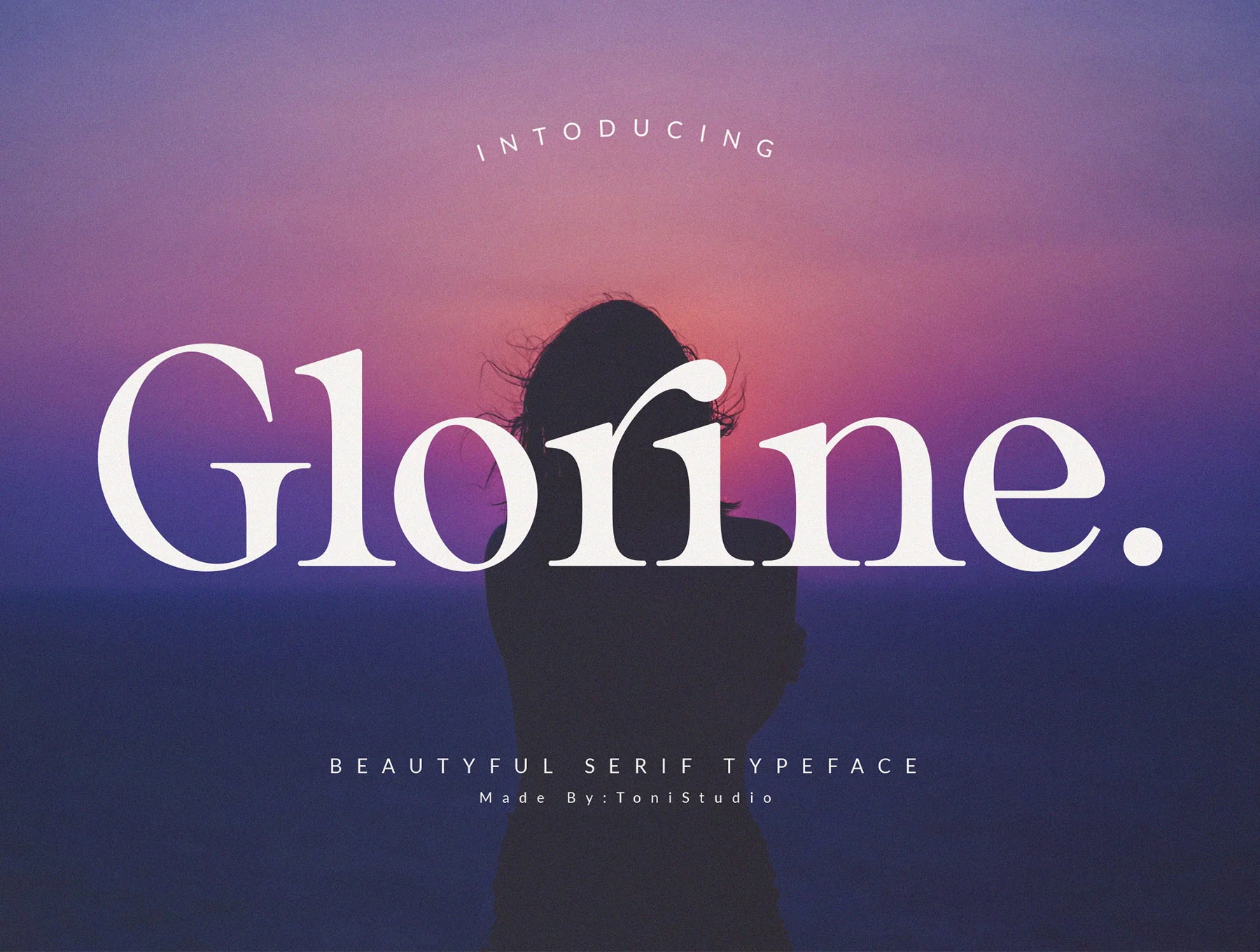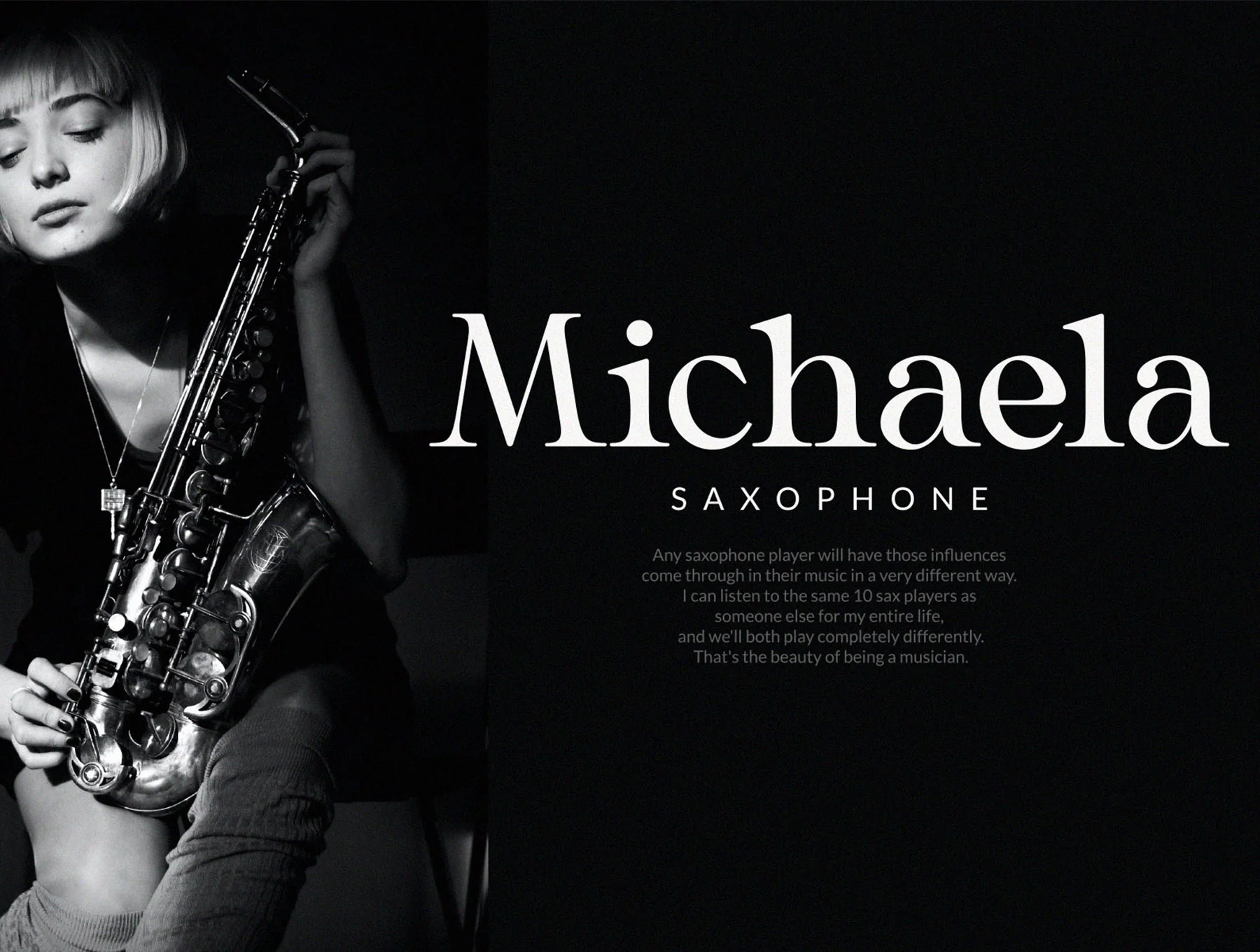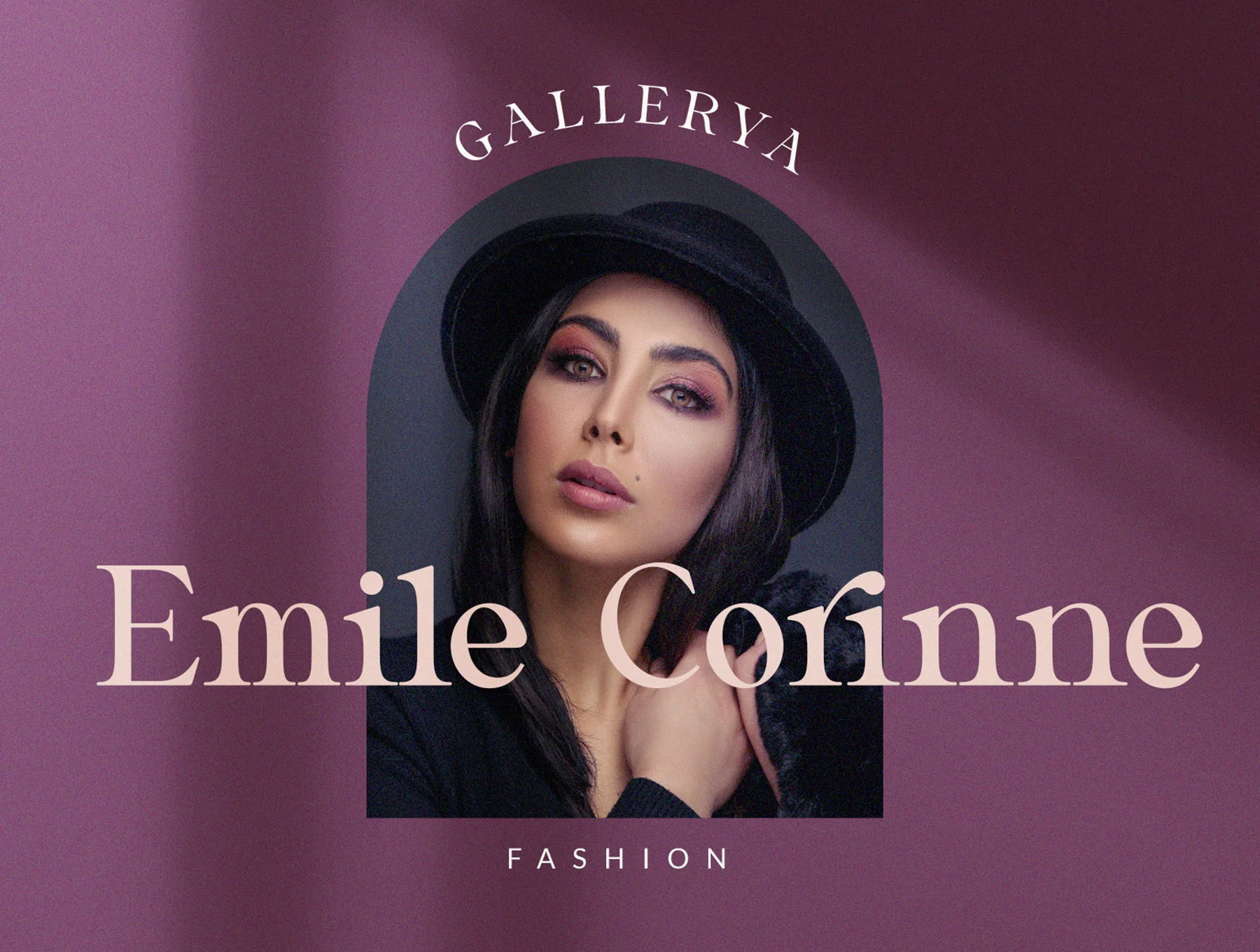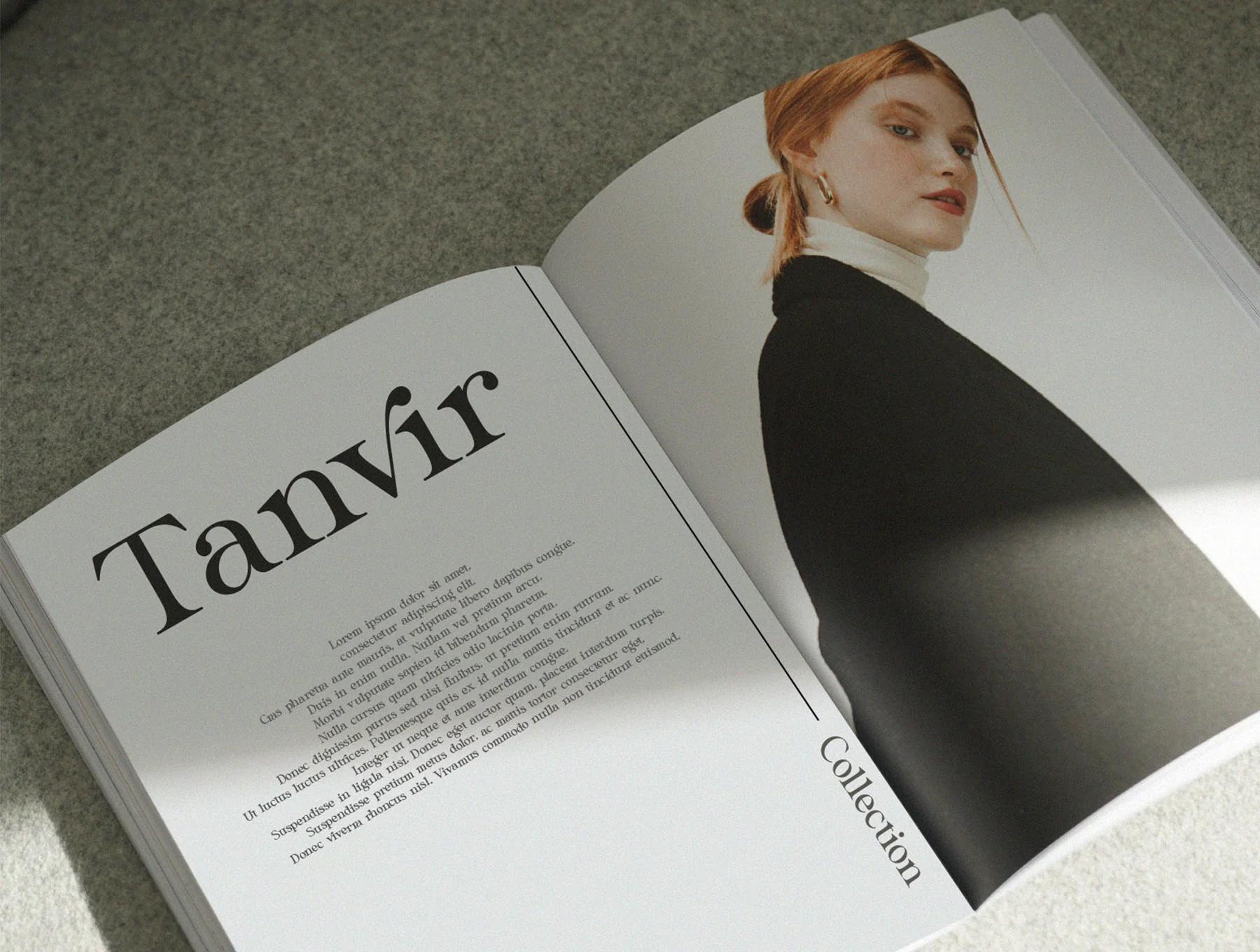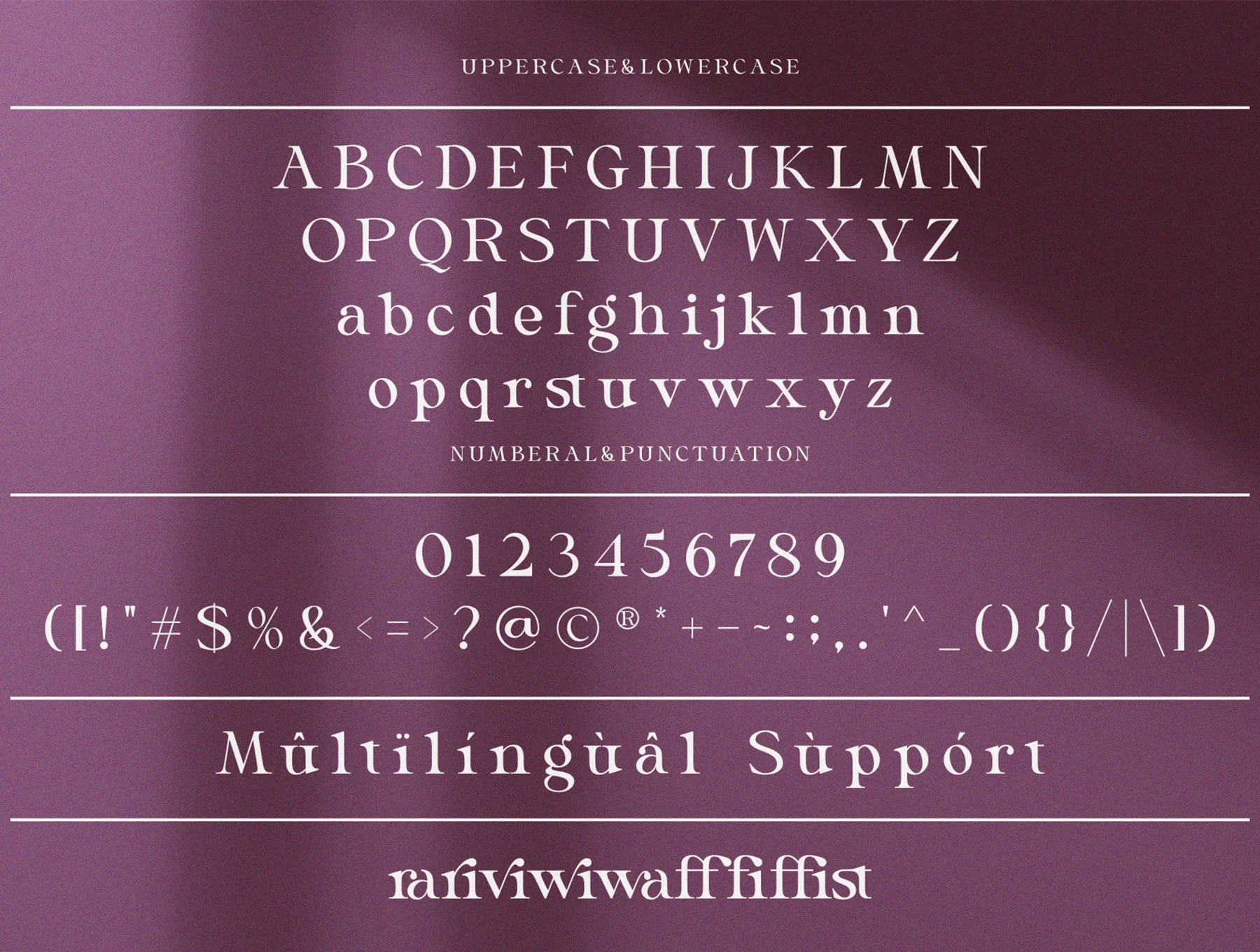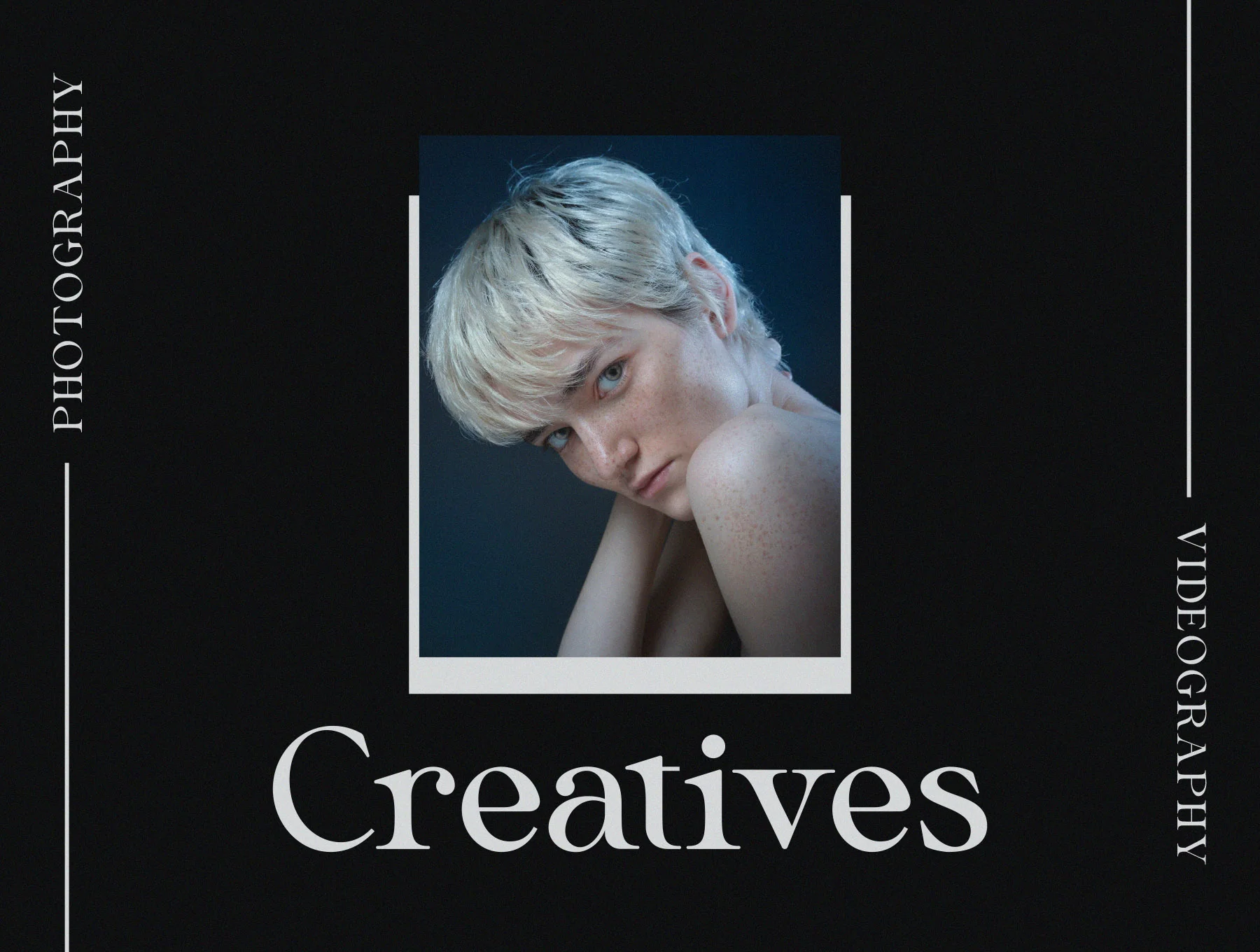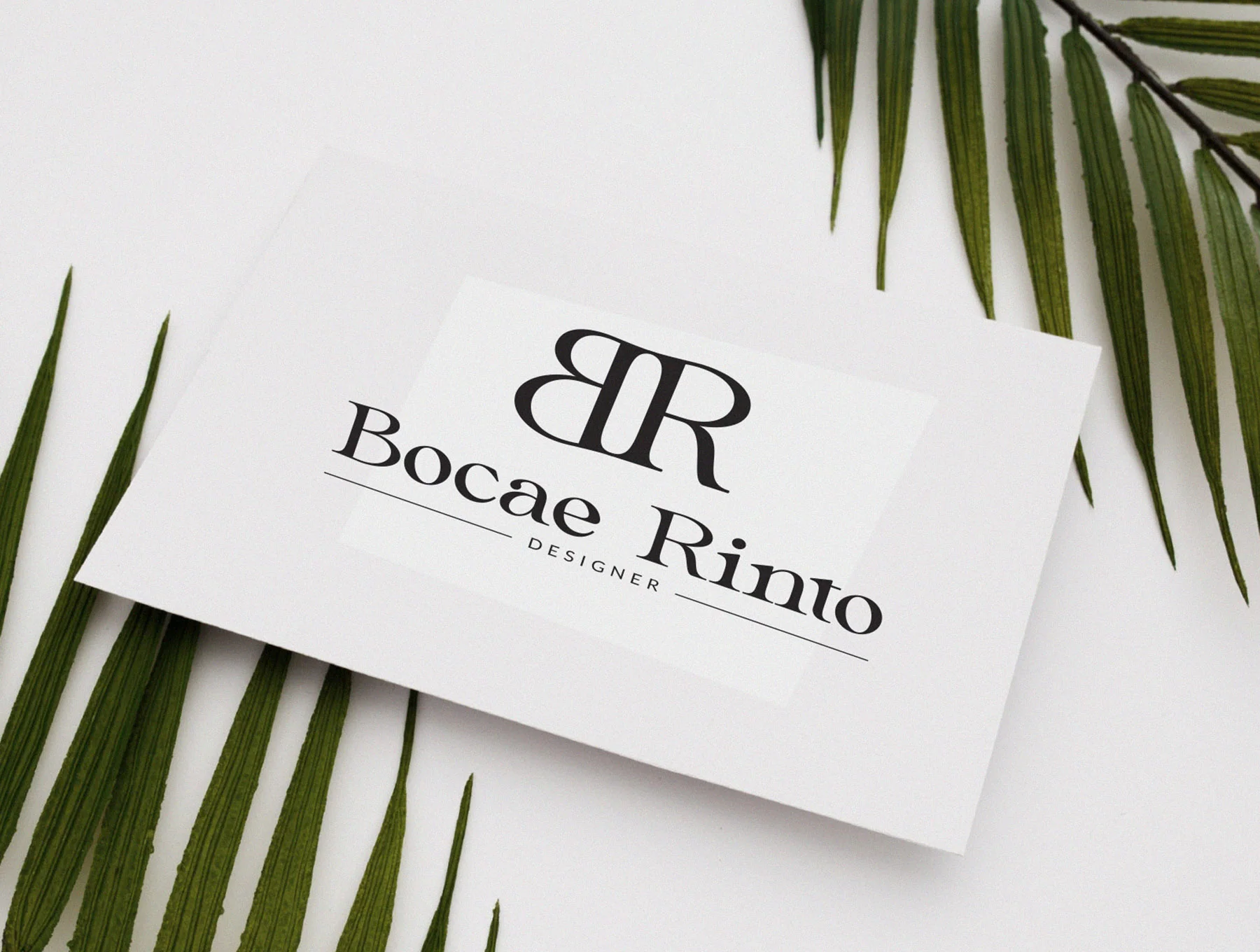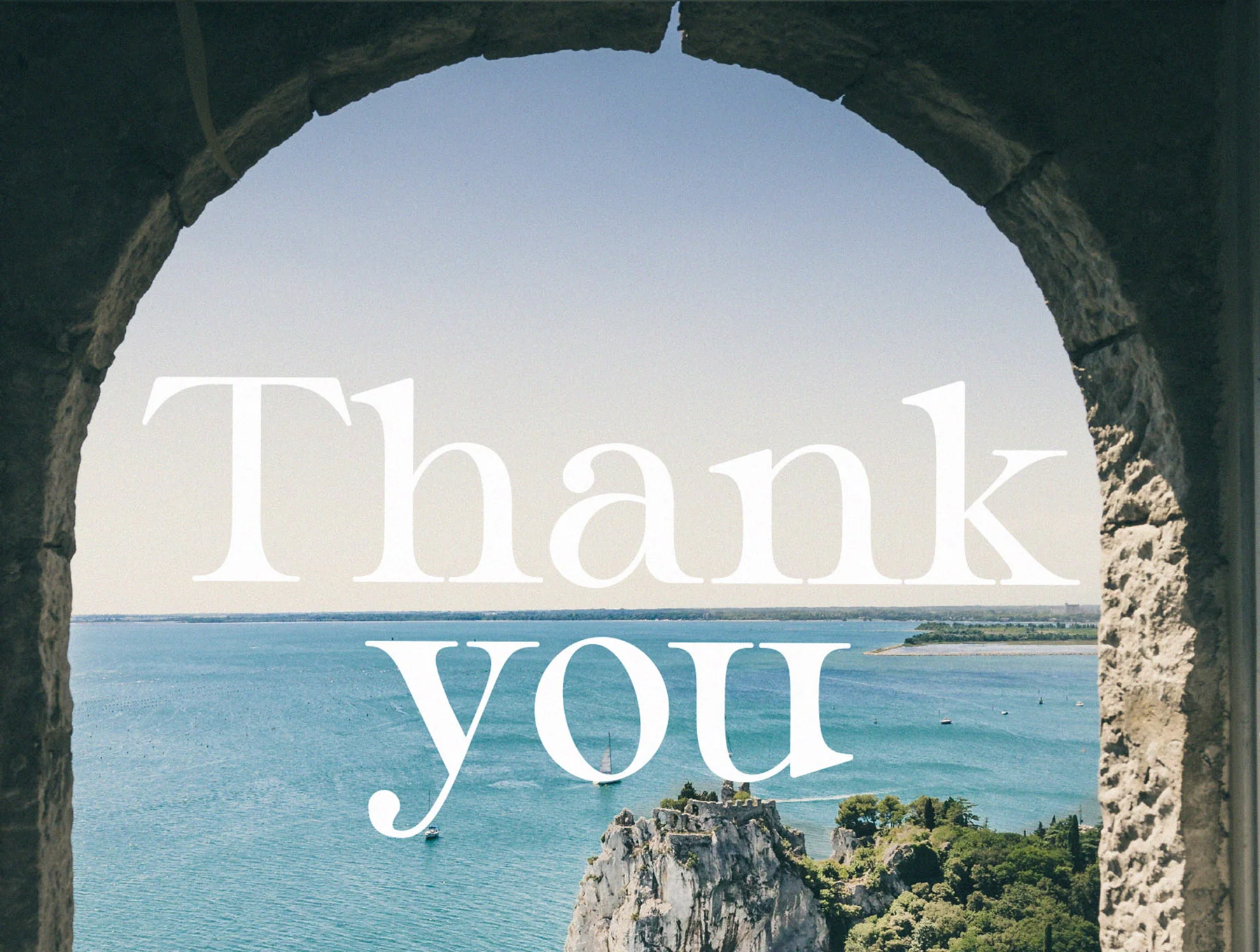
Glorine_Beautyful serif typeface
Elegant serif font
Glorine is an elegant serif font with a timeless, refined look for any setting. Blending modern style with nostalgic charm, it suits logos, magazines, social posts, and polished branding projects. Includes multilingual support plus OTF, TTF, and WOFF files.